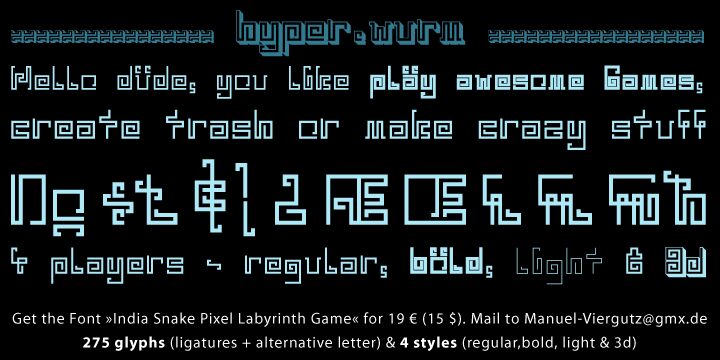
India Snake Pixel Labyrinth Gam-Lig by Manuel Viergutz is a free decorative display font built around continuous, maze-like paths. Its thin monoline strokes turn at crisp right angles, curling inward and leaving deliberate breaks that make each letter resemble a compact labyrinth.
Puzzle and retro-game themes are its clearest setting, especially for game interfaces and event posters. The lettering can also shape escape-room branding, puzzle-book covers, and themed merchandise, where the winding construction becomes part of the subject rather than a neutral label. Across these uses, the repeated turns and open passages create an immediate visual link to routes, riddles, and spatial challenges.
India Snake Pixel Labyrinth Game is an OpenType font with 275 glyphs, alternative letters, symbols, and ligatures, including accented characters and the euro sign. It includes four styles: regular, bold, light, and 3D.